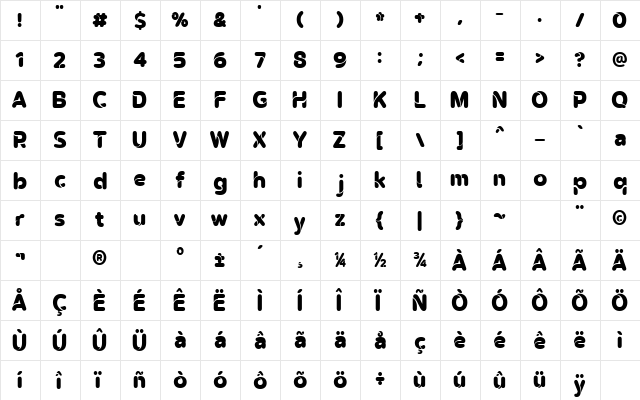
OMEGLE Regular
| Foundry | 177Studio |
| Designer | 177Studio |
Design Context for OMEGLE Typeface
OMEGLE takes a measured approach to typography — its balanced proportions and neutral character make it a reliable workhorse for both digital and print work.